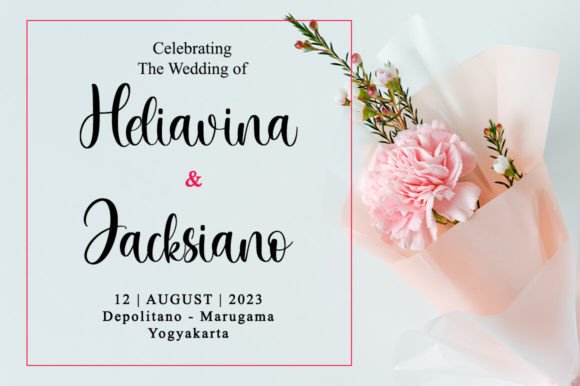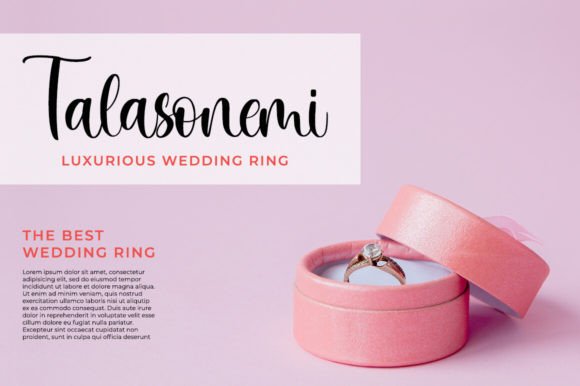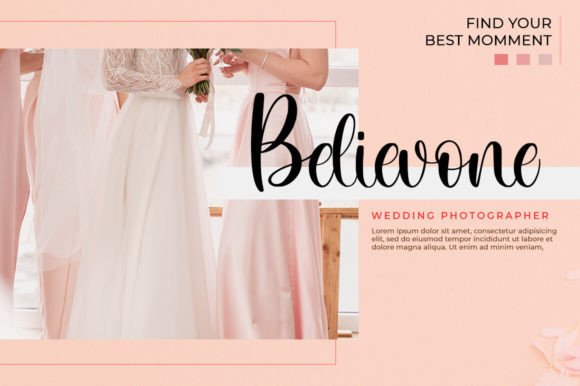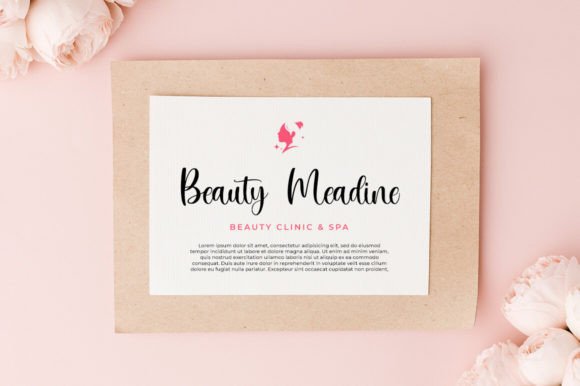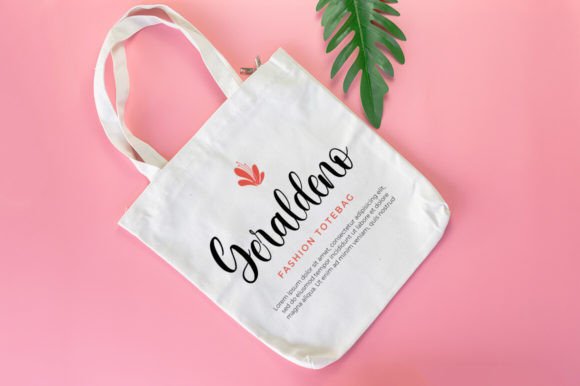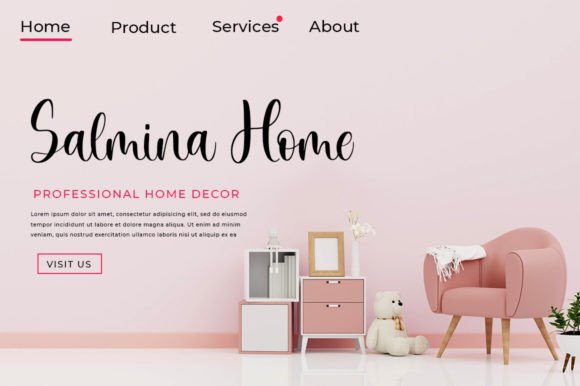
Introduction to Rotanabey Font
Have you ever found yourself staring at a blank page, trying to bring your creative vision to life? That’s exactly where I was when I stumbled upon the beautiful Rotanabey Font. This stunning script font added a touch of elegance and sophistication to my latest art project, and I couldn’t wait to share it with the world.
As designers, we’re always on the lookout for high-quality design resources that can elevate our creative projects. The Rotanabey Font is a game-changer, offering a perfect blend of modern and classic styles that’s perfect for logos, branding, invitations, and more. With its gorgeous typographic and transparent background options, this font is a must-have for any designer looking to add a personal touch to their work.
Whether you’re working on a free download project or a paid design, the Rotanabey Font is an invaluable resource that’s sure to take your creative project to the next level.
Key Features of Rotanabey Font
- Unique, hand-drawn design perfect for creative projects and artistic endeavors.
- Features a transparent background, allowing for seamless integration with any design or background.
- High-quality design with precise lines and details, suitable for use in a variety of design applications.
- Perfect for use in creative projects, such as graphic design, digital art, and typography-based designs.
Honest Review: Rotanabey Font
As a designer, I’m always on the lookout for unique and high-quality design resources to enhance my creative projects. The Rotanabey Font has caught my attention with its distinctive and elegant style. I was excited to try it out and see how it performs.
Here are some of the things that I like about the Rotanabey Font: ✨
- Unique and elegant design style
- High quality, making it suitable for various design projects
- Can be easily customized to fit my design needs
However, I did encounter a few limitations with the Rotanabey Font: ⚠️
- No support for transparent background, which might be a limitation for some designers
- Might not be suitable for projects that require a more modern or edgy look
Overall, I’m impressed with the Rotanabey Font and its potential to elevate my design projects. While it has some limitations, it’s a great addition to my design library and I would recommend it to designers looking for a unique and elegant font.
Tips for Getting the Most Out of Rotanabey Font
Experiment with different font sizes, colors, and arrangements to maximize the impact of Rotanabey Font in your design. You can also pair it with other fonts for a more sophisticated look.
Rotanabey Font is suitable for various design projects, including logos, business cards, posters, and social media graphics. Its unique style makes it an ideal choice for creative professionals and hobbyists alike.